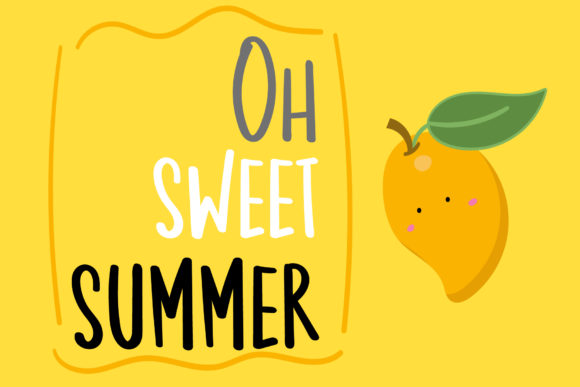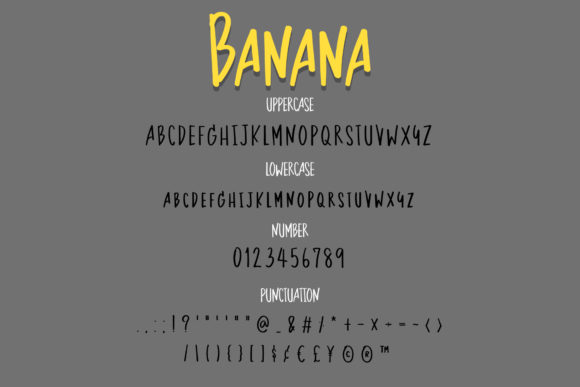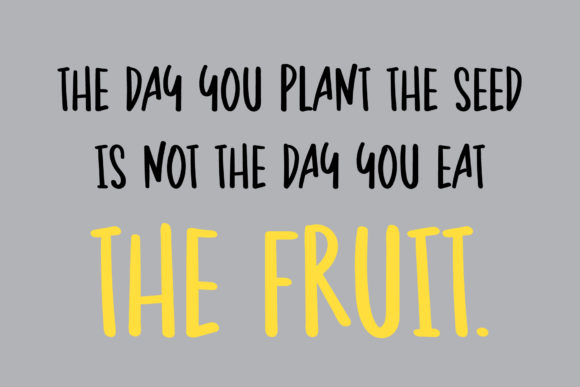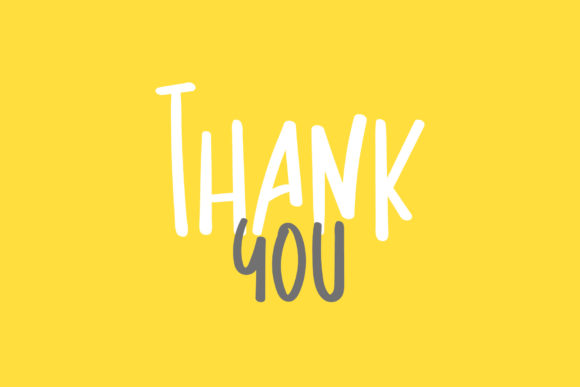
The Perfect Recipe for Creativity: Introducing the Banana Font
Have you ever found yourself lost in the world of endless design possibilities, searching for that one perfect font to bring your vision to life? We’ve all been there – staring at a blank canvas, a blank page, or a blank screen, wondering which font will make our project truly special.
That’s where the Banana Font comes in – a charming, handwritten font designed to add a touch of whimsy and personality to your designs. Whether you’re a seasoned designer or a creative enthusiast, this font is sure to inspire your next project. Its unique style and versatility make it a valuable asset for any designer looking to add a personal touch to their work.
Banana Font Key Features
- Unique Characteristics: The font’s unique design features a curved, organic shape, reminiscent of a banana peel, making it a distinctive choice for creative projects.
- Language Support: Banana Font supports a wide range of languages, including Latin, Cyrillic, and Greek scripts, making it a versatile option for multilingual designs.
- Weight and Style: The font comes in various weights, from Light to Bold, and multiple styles, including Regular, Italic, and Bold Italic, offering flexibility in design applications.
Designer Review: Banana Font
First of all, I’d like to say that the Banana Font is quite unique and fun to look at. ✨ The playful, rounded shapes of the letters are perfect for creating a friendly and approachable atmosphere. The font is also highly legible, even at small sizes, which makes it a great choice for body text.
- Customization options: The Banana Font offers a range of customization options, including various font weights and styles. This allows designers to tailor the font to their specific needs and create a unique look.
- Fun and playful: The font’s playful nature makes it perfect for use in children’s books, magazines, and other publications that target a younger audience.
However, there are a few limitations to the Banana Font that I’d like to point out. ⚠️ The font is not as versatile as some other fonts on the market, and it may not be the best choice for more formal or professional applications.
Overall, I think the Banana Font is a great choice for designers who are looking for a fun and playful font to add some personality to their projects. While it may not be suitable for every application, it’s a great option for those who want to create a lighthearted and approachable atmosphere.
For a fun and playful look, pair Banana Font with bright and bold colors and graphics.
For a unique and eye-catching design, experiment with different font sizes, colors, and effects.
For a professional and modern look, pair Banana Font with clean and simple backgrounds and graphics.
Banana Font is perfect for:
- Creative and playful designs
- Children’s books and educational materials
Remember to experiment with different font sizes, colors, and effects to get the most out of Banana Font.